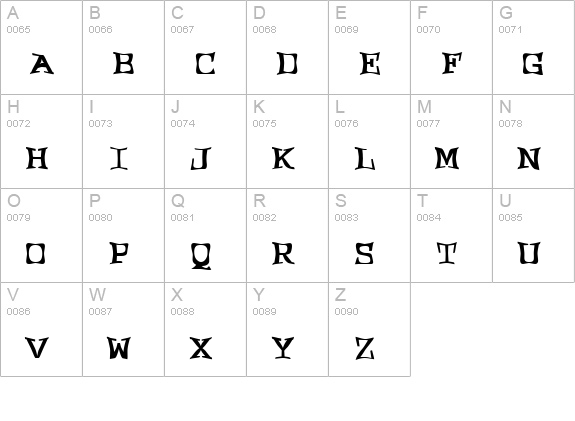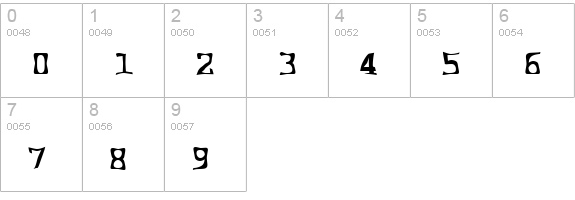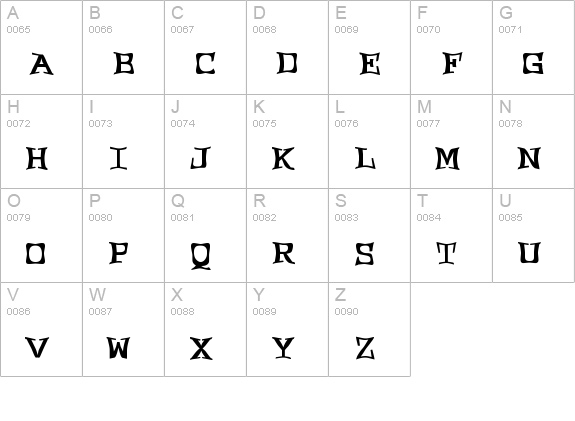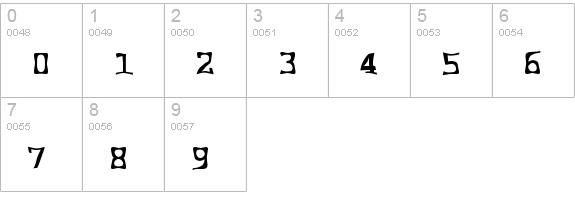
Dartmoor Font Details
Dartmoor font is a versatile and elegant typeface that exudes a sense of sophistication and modernity. With its clean lines and stylish curves, Dartmoor font is perfect for a wide range of design projects, from branding to editorial design. This versatile font is sure to make your text stand out and leave a lasting impression on your audience. The best part? Dartmoor font is completely free to download at FontsMarket.com. Whether you're a professional designer or a hobbyist looking to elevate your projects, Dartmoor font is the perfect addition to your font collection. Download it today and start creating stunning designs with ease!